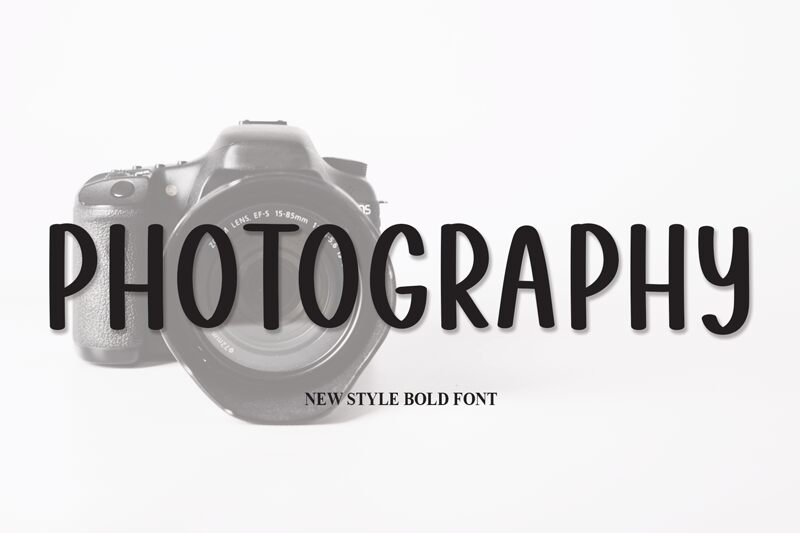
Photography
Introducing Photography, a captivating handwritten font designed by Scratchones. With its condensed width and block letters, this font exudes a unique charm that is perfect for various projects.
Its distinct style adds an artistic touch to invitations, greeting cards, and posters. For branding purposes, Photography is ideal for logos and packaging designs. Whether you're creating a vintage-inspired website or adding a personal touch to your social media posts, this all caps font will make your content stand out.
Let Photography elevate your designs with its handwritten elegance and condensed form.